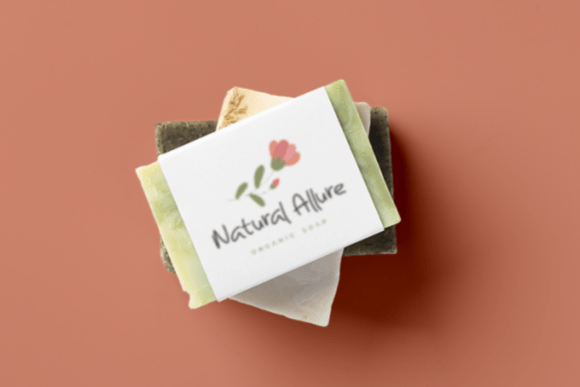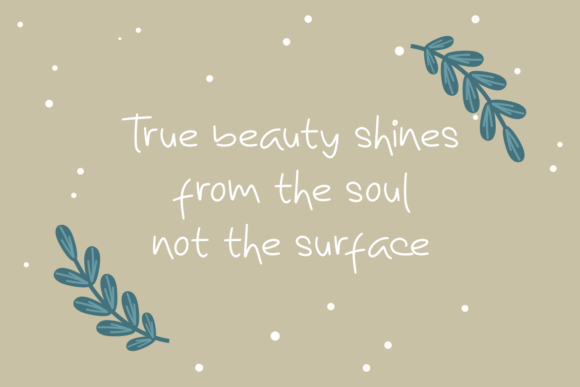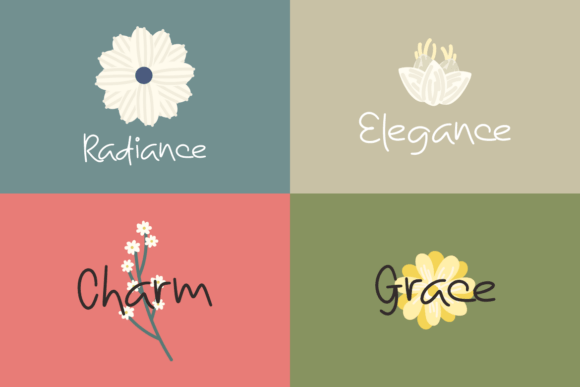
Introduction to Quabble Glop Font
QuabbleGlop โ€“ Handwritten Font Introducing QuabbleGlop โ€“ Handwritten Font, a delightful typeface that brings a touch of whimsy and joy to any project.
Crafted with a playful spirit, QuabbleGlop captures the essence of childlike creativity with its quirky monoline strokes Each letter is handdrawn with care, ensuring that your designsโ€”whether they be logos, branding materials, or invitation cardsโ€”exude personality and charm.
Why Choose Quabble Glop Font?
Quabble Glop Font offers exceptional quality and versatility, making it a valuable addition to your design toolkit. Whether you’re creating for personal projects or commercial use, Quabble Glop Font delivers professional results.